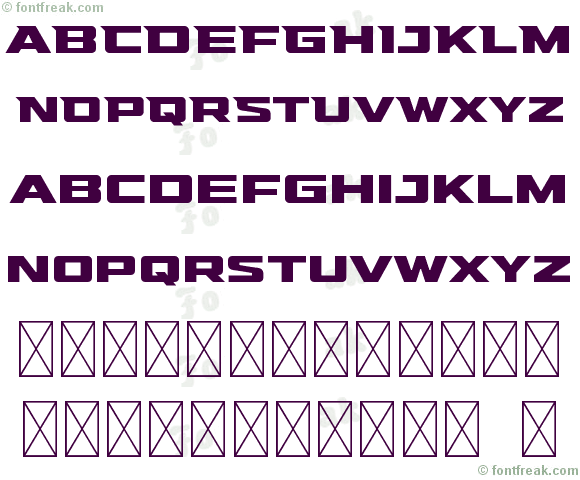
Hunterra
Hunterra is a striking display font designed by Mukhlis Muhammad in 2020, characterized by its bold and contemporary aesthetic. This font falls under the variatype category, showcasing a unique blend of geometric shapes and sharp angles that create a strong visual impact. The stroke weight is consistent, lending a sense of stability and confidence to the typeface. Its modern design features minimal contrast, ensuring readability while maintaining an eye-catching appearance. The spacing is well-balanced, allowing for easy legibility, making it suitable for various applications.
This font is perfect for a range of creative projects. For instance, it works exceptionally well in fashion branding, where bold statements are essential. Hunterra can also elevate movie posters, giving titles a dramatic flair that captures attention. Additionally, its striking nature makes it a great choice for restaurant menus, adding a contemporary feel that complements modern dining experiences. Graphic designers will find this font invaluable for promotional materials, helping to convey messages in a visually compelling way.
The target audience for Hunterra includes graphic designers, small business owners, and content creators who seek to make a memorable impression. Its versatility allows it to adapt to both digital and print formats, ensuring that it meets the demands of various projects.
What truly sets the Hunterra font apart is its ability to combine strength and style seamlessly. With its bold design and modern characteristics, it stands out in any context, making it an excellent choice for those looking to elevate their visual communication. For anyone interested, the Hunterra font free download is available, providing an opportunity to incorporate this distinctive typeface into your next creative endeavor.